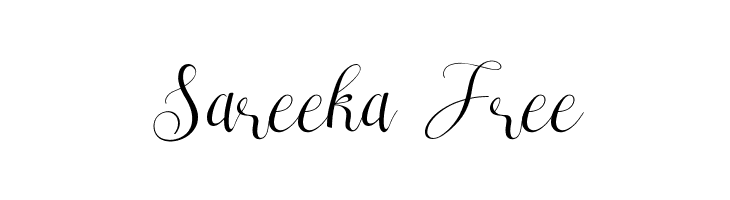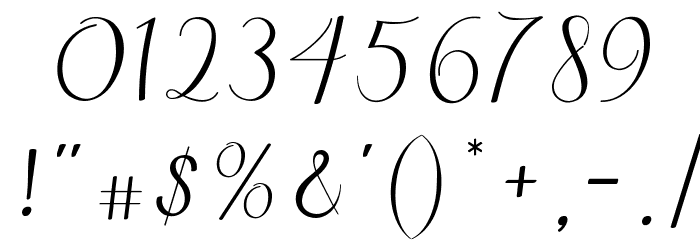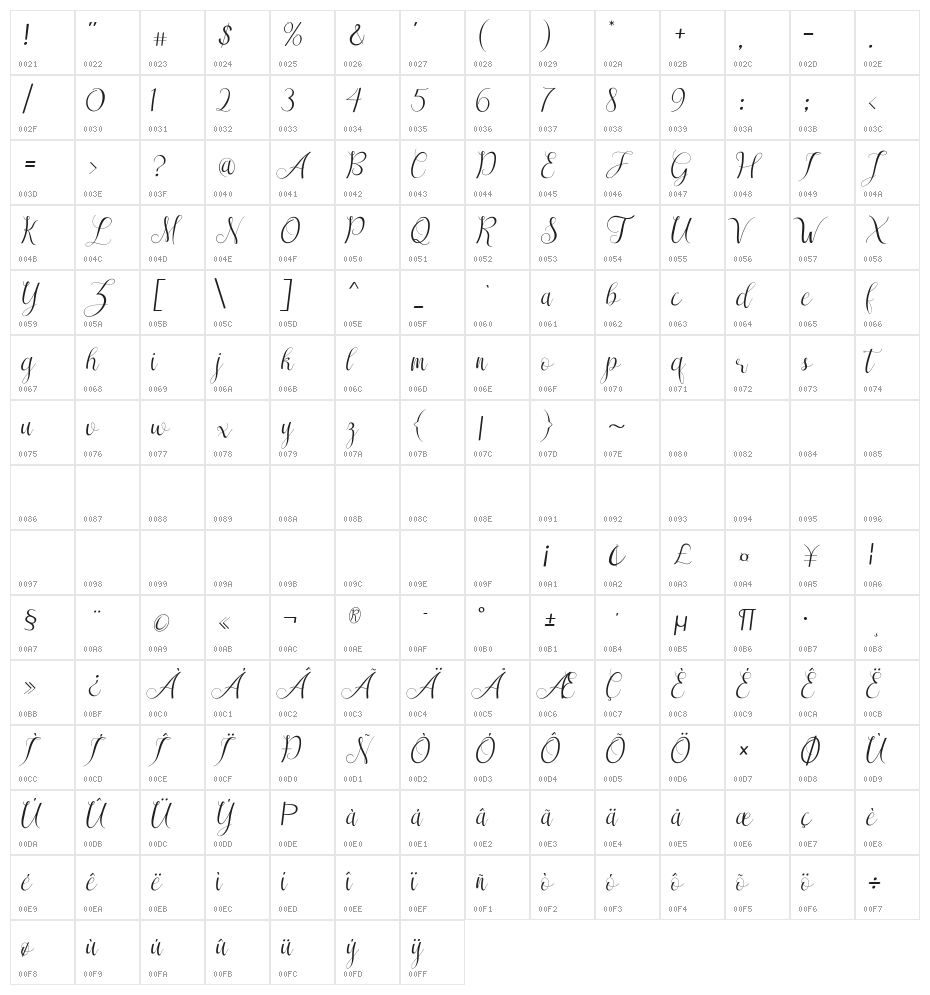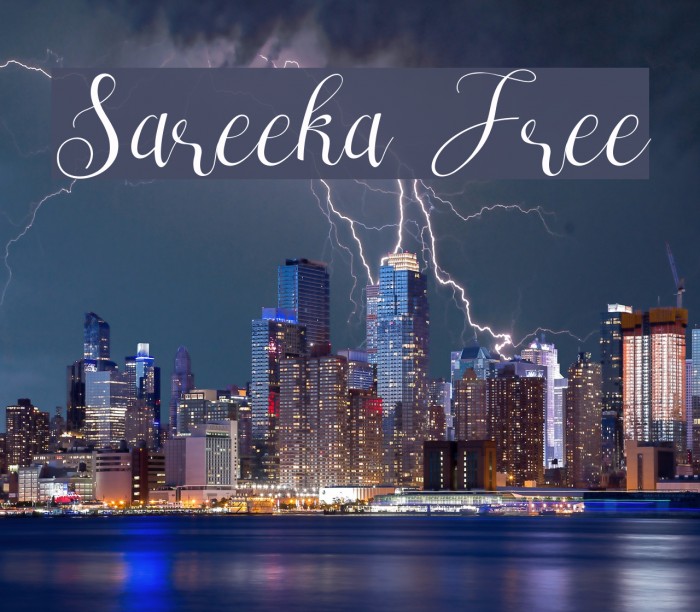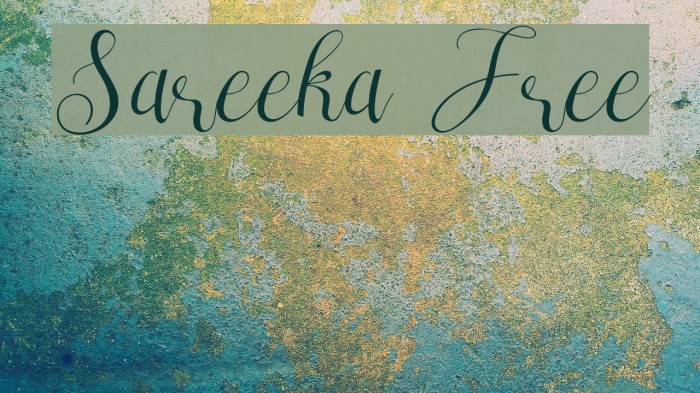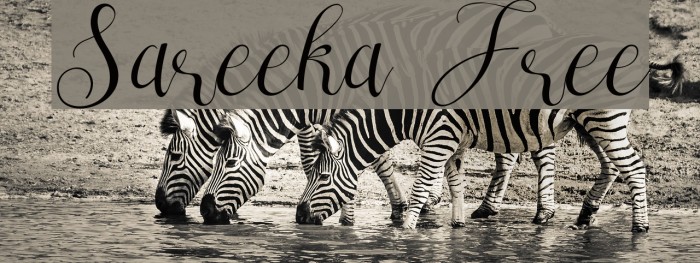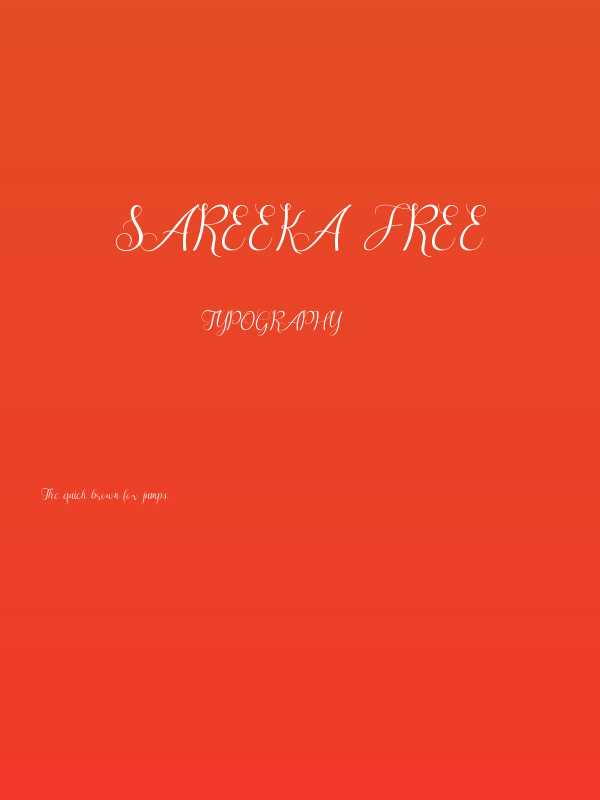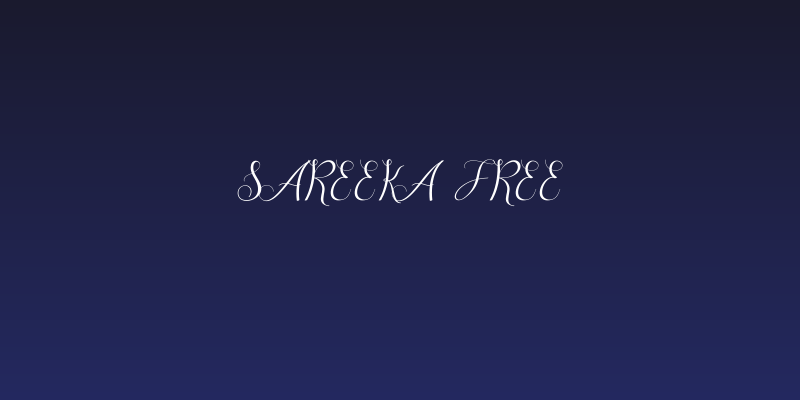
Sareeka Free Font
This elegant script font features a flowing, cursive style with intricate swashes and flourishes that give it a sophisticated and artistic appearance. The letters are connected in a fluid manner, creating a sense of movement and grace. The uppercase letters are particularly ornate, with extended loops and decorative elements that enhance their visual appeal. The lowercase letters maintain a consistent style, complementing the uppercase with their own subtle curves and connections. The numerals and special characters are designed to match the overall aesthetic, ensuring a cohesive look across all text elements. This font is ideal for projects that require a touch of elegance and creativity.
| Overall Style | Elegant, Artistic |
| Use Case | Headlines, Invitations, Artistic designs |
| Proposed Projects | Ideal for wedding invitations, elegant branding, greeting cards, and artistic projects. |